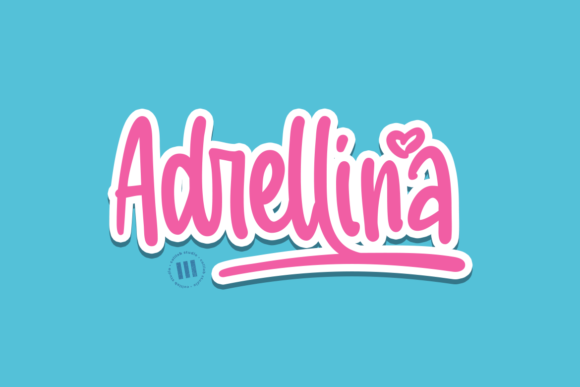
Journey into the world of Adrellina, a script font family that exudes elegance and charm. Its graceful curves and delicate strokes capture the essence of handwritten artistry, evoking a sense of warmth and individuality.
Step into the realm of romance and enchantment with Adrellina, a font that will transform your creative visions into captivating realities. From wedding invitations that whisper sweet promises to album covers that sing of love and laughter, Adrellina is the perfect choice for capturing life's most precious moments.
Unleash your creativity with Adrellina, a font that dances across the page like a ballerina, its every letter a testament to the beauty of the written word. Whether you're designing logos that speak volumes or crafting social media posts that demand attention, Adrellina will elevate your work to new heights of sophistication.
Immerse yourself in the boundless possibilities of Adrellina, a font that knows no limits. Its versatility allows it to adapt seamlessly to a myriad of design projects, from branding and marketing materials to website designs and product packaging. With Adrellina, your imagination is the only boundary.
Indulge in the allure of Adrellina, a font that whispers of elegance and grace. Its timeless beauty will add a touch of refinement to your designs, captivating your audience with its effortless charm. Prepare to be swept off your feet as Adrellina takes you on a journey of visual delight.